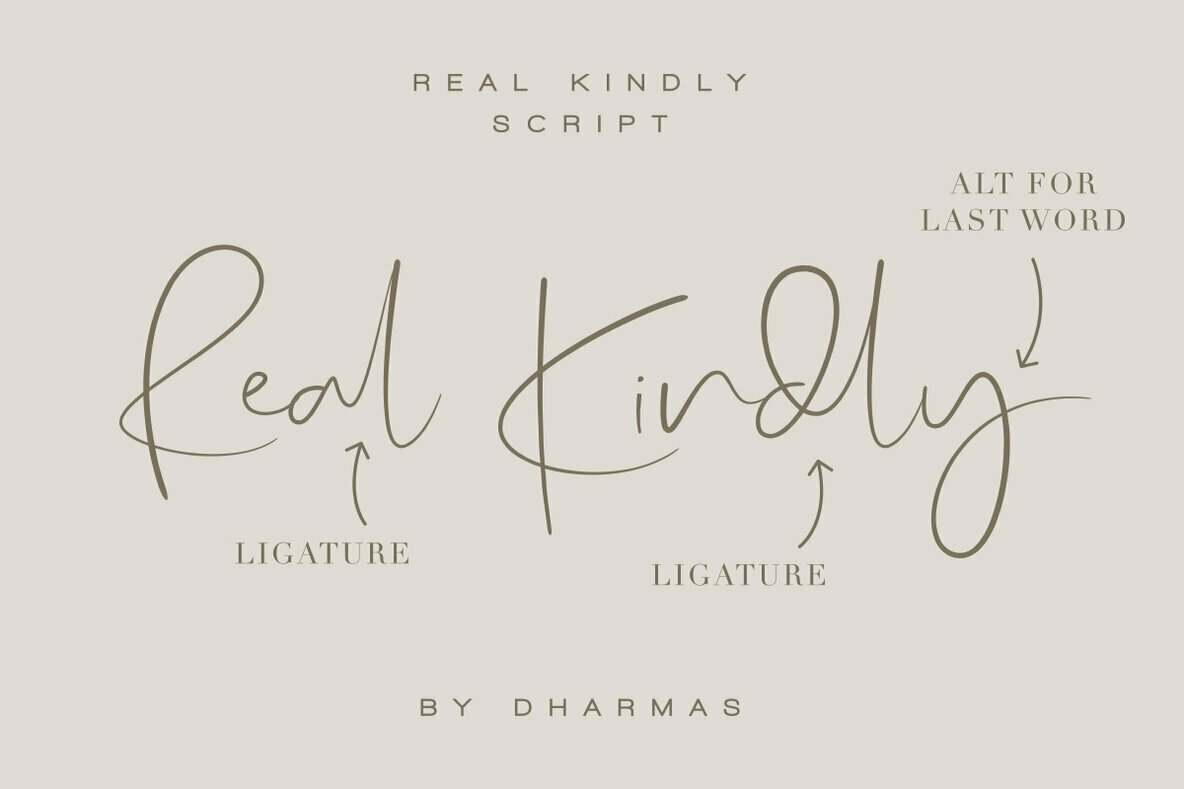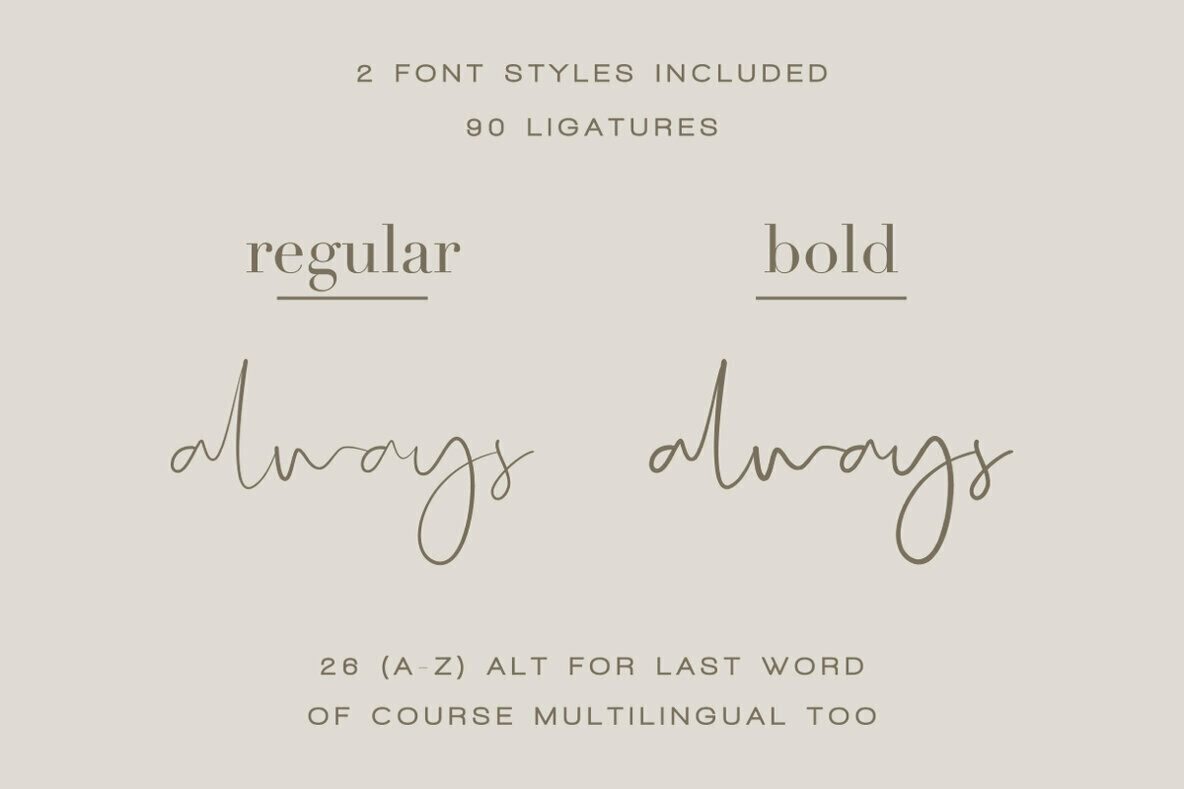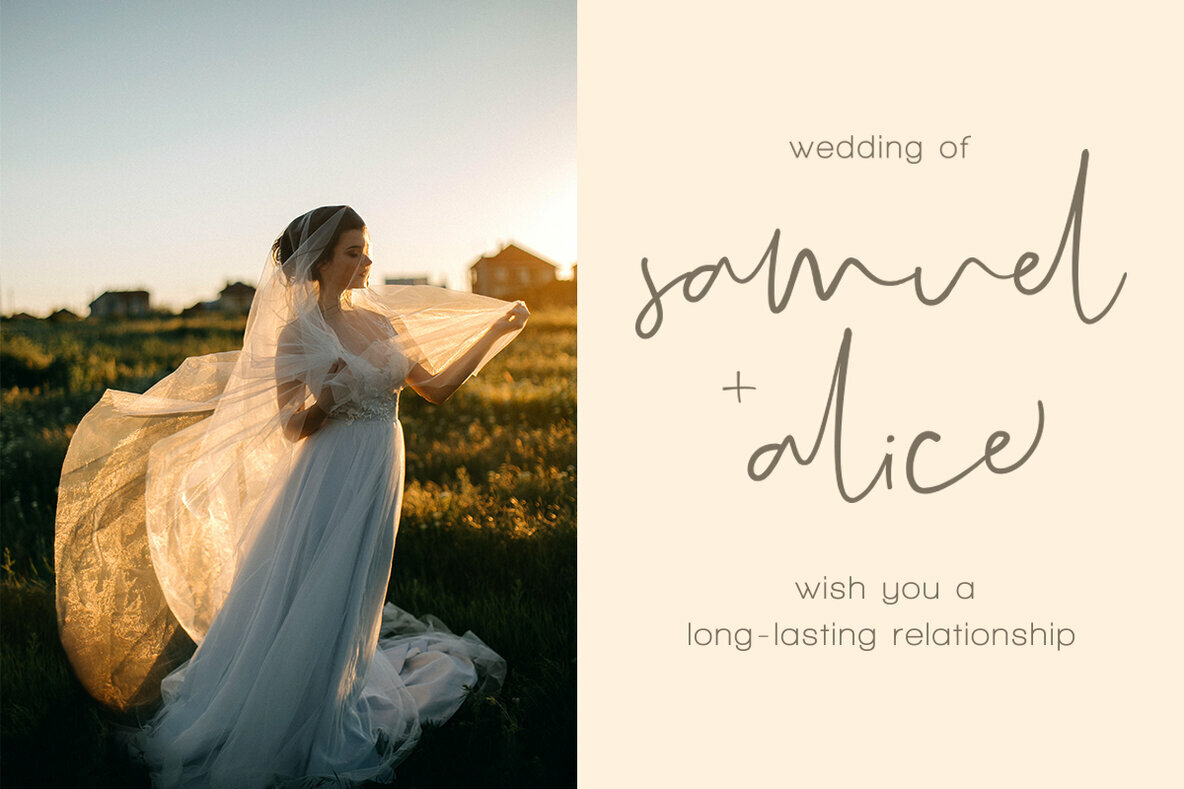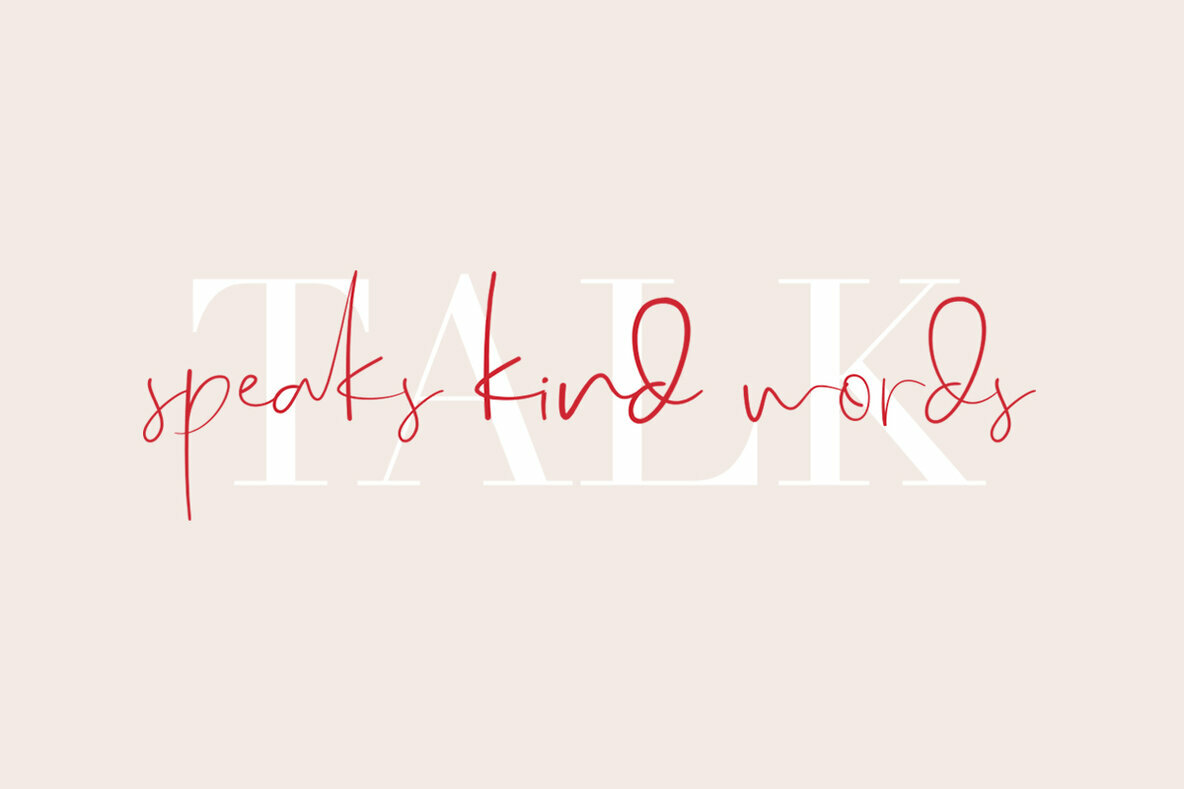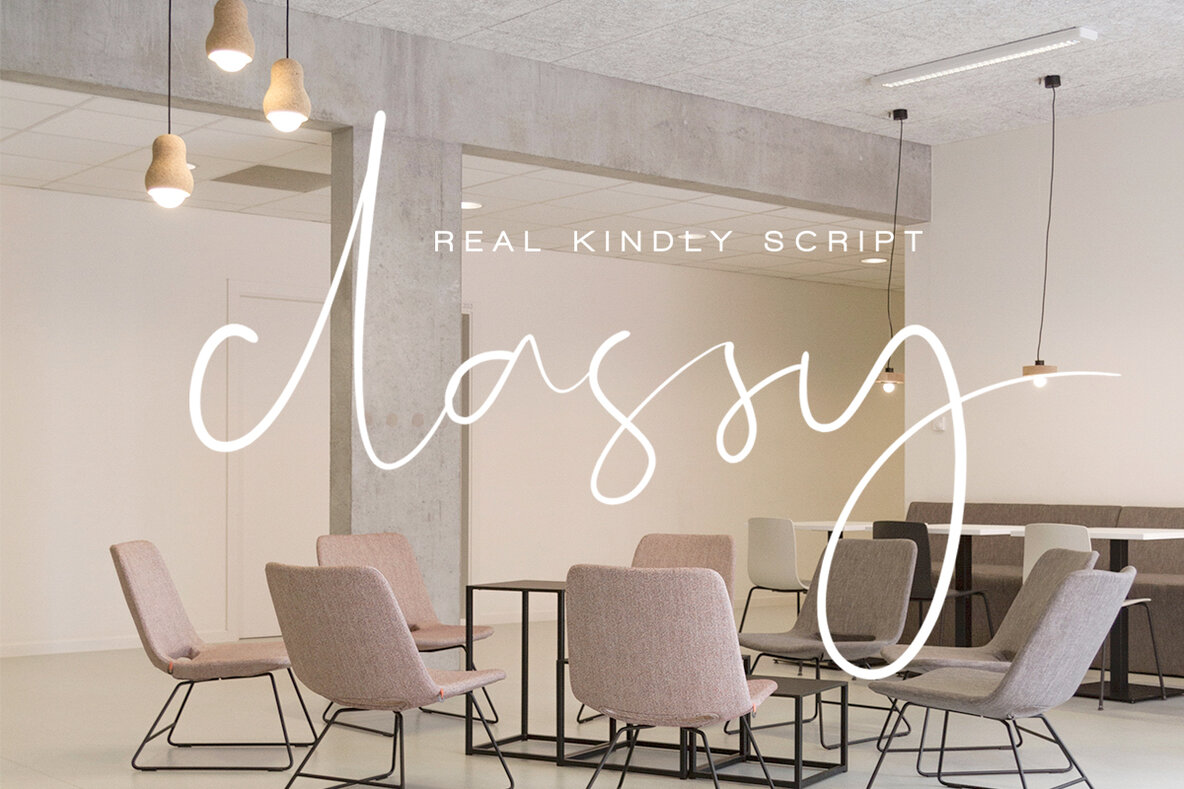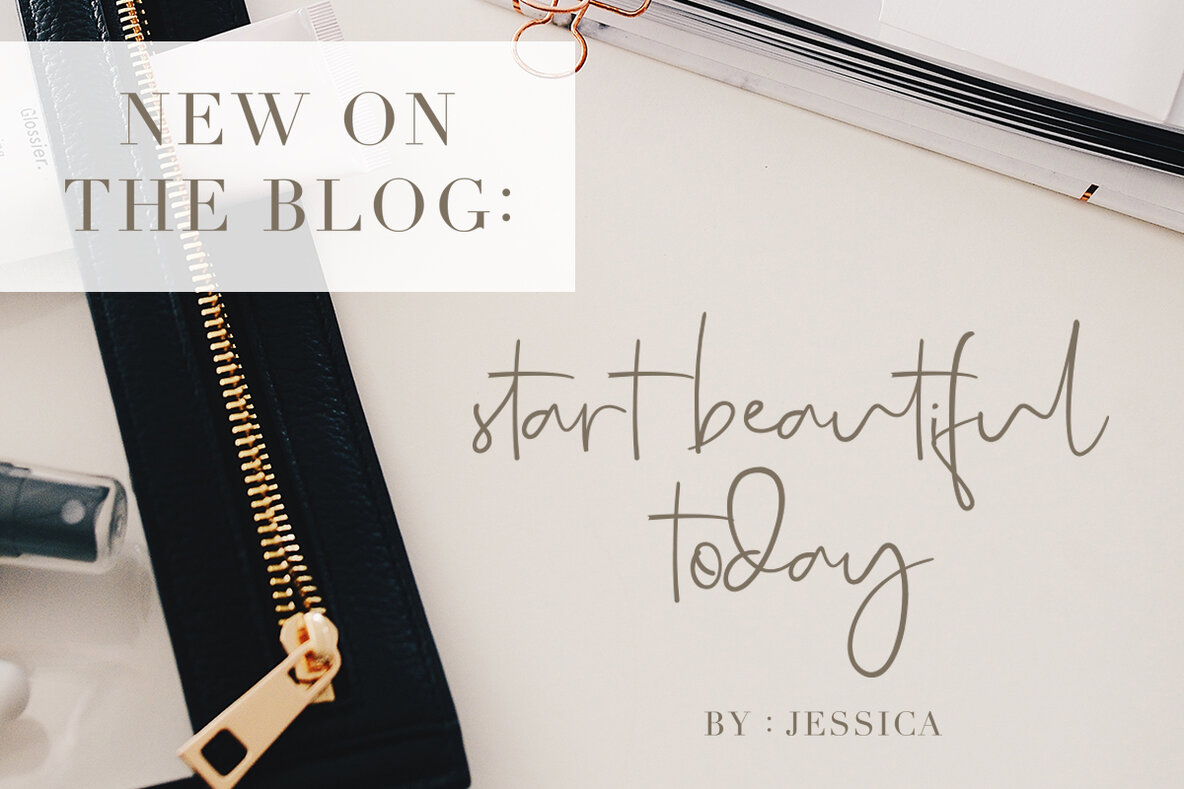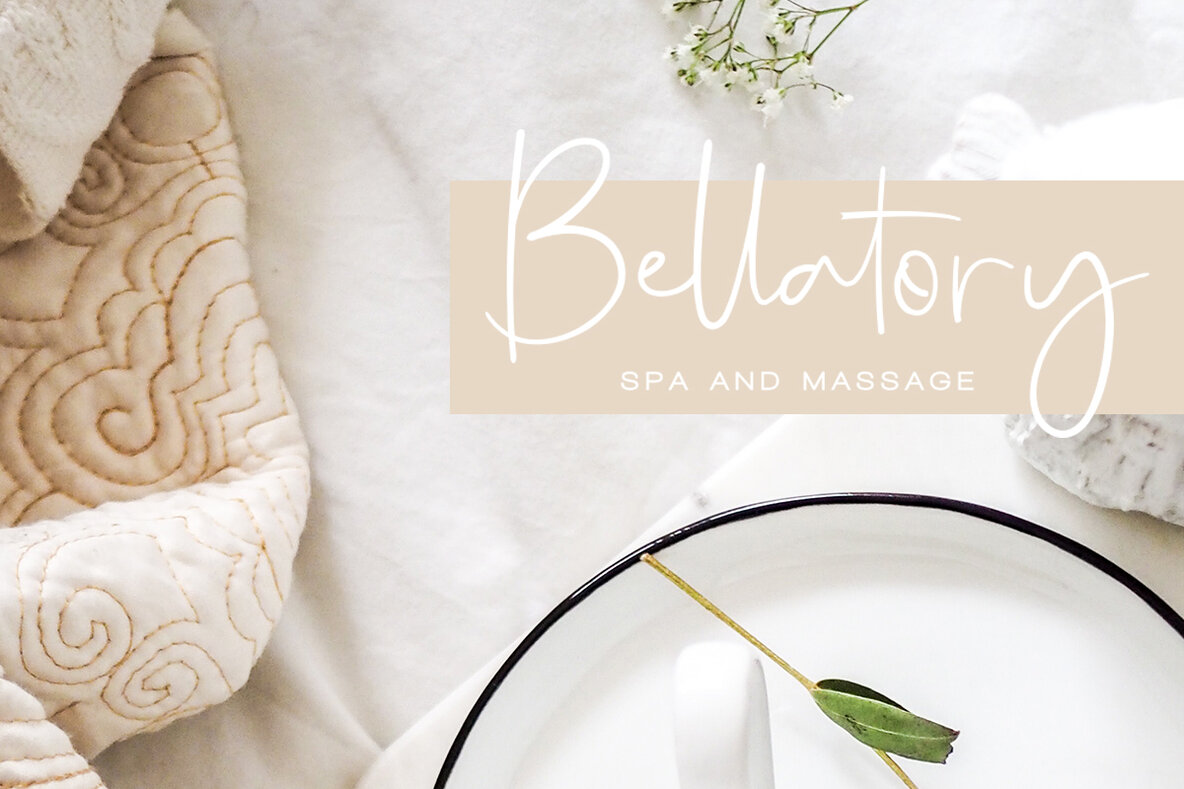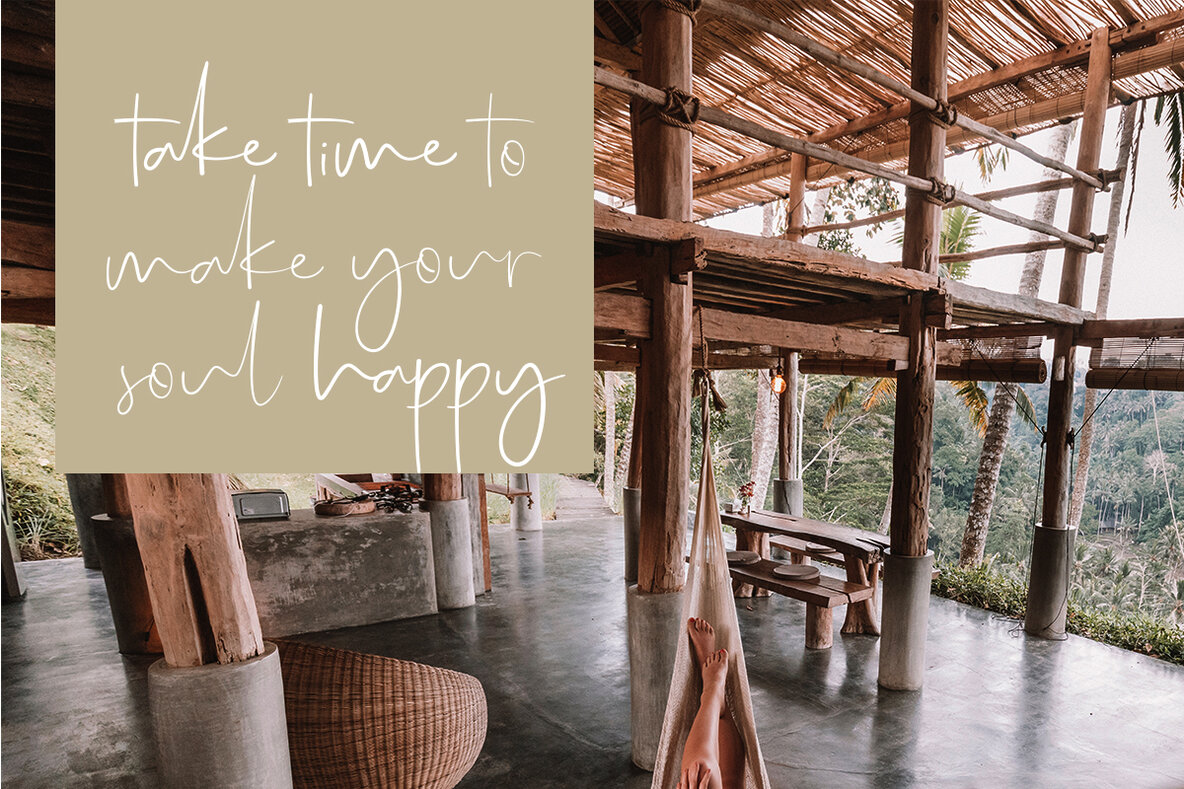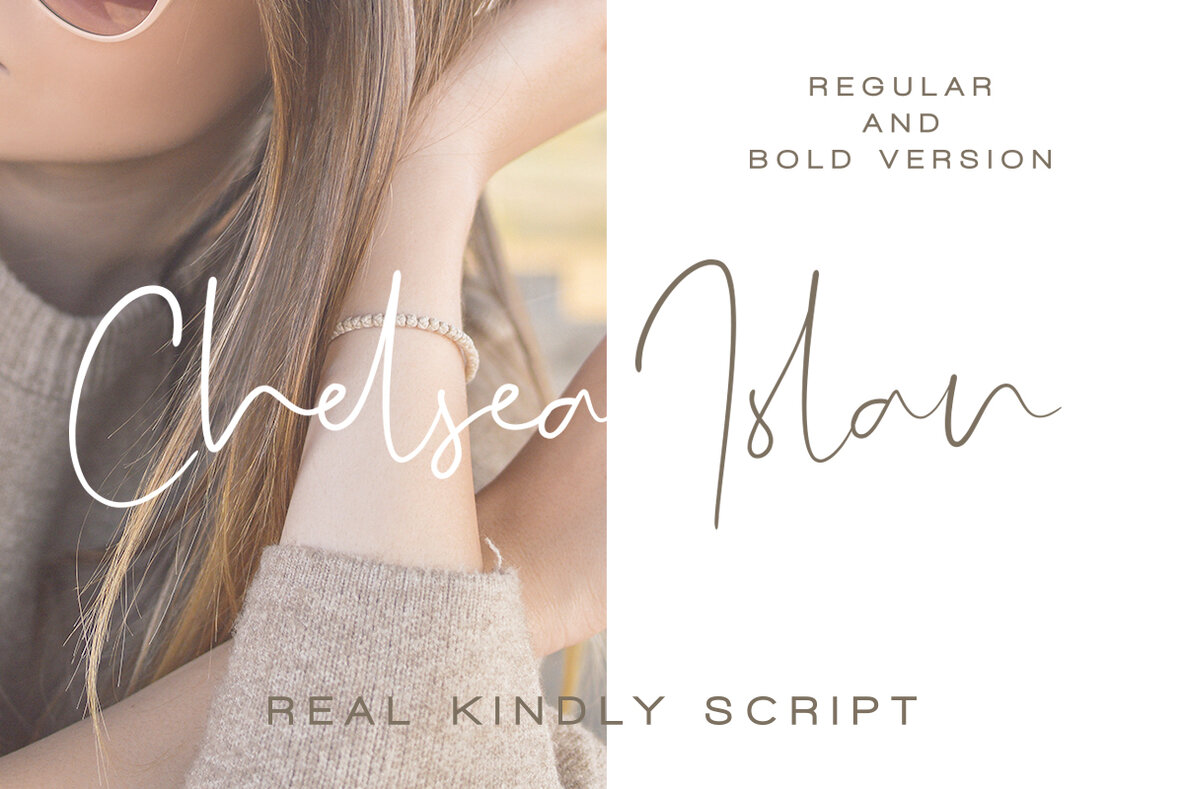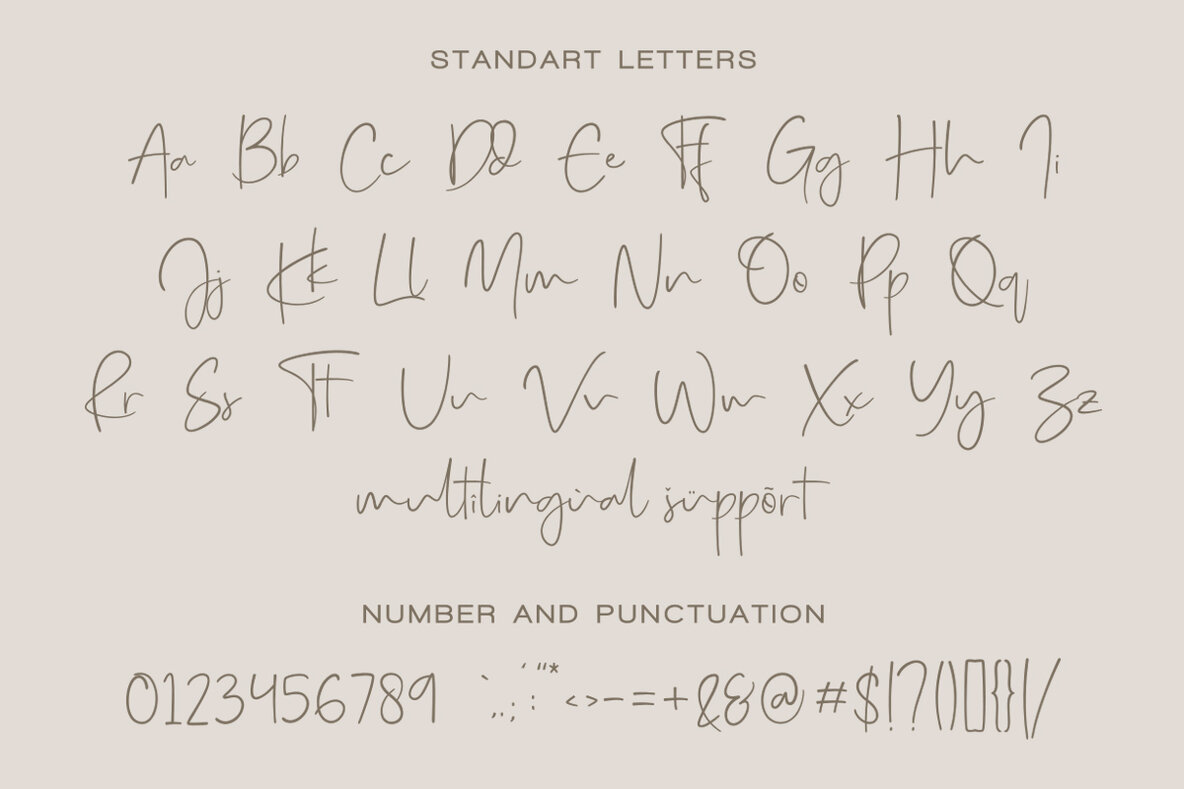
Real Kindly Font
Real Kindly by Dharmas Studio offers a blend of elegance and casual charm with its handwritten script typeface. Available in both regular and bold variants, this typeface is an impeccable choice for projects requiring a personal touch. From signature logos to wedding invitations, social media graphics, and product packaging, Real Kindly imbues a sense of authenticity and refinement. The typeface features an extensive character set, including a full range of uppercase and lowercase letters, numerals, and punctuation. Support for multilingual symbols caters to diverse linguistic needs, enhancing its versatility across global projects. Additionally, Real Kindly boasts 45 stylish ligatures and alternate letter forms that add a personalized flair to any text. Whether crafting printed quotes or social media headers, Real Kindly effortlessly enhances your creative works with its signature charm.Real Kindly: The Signature Script Typeface